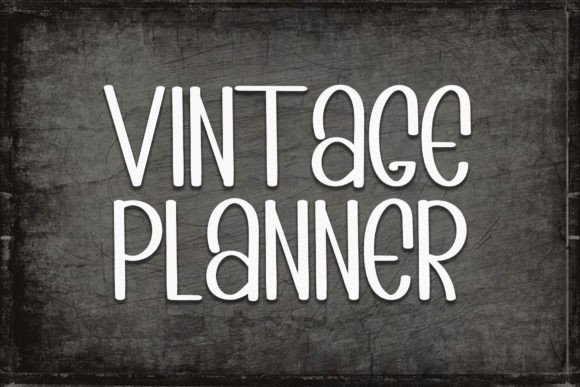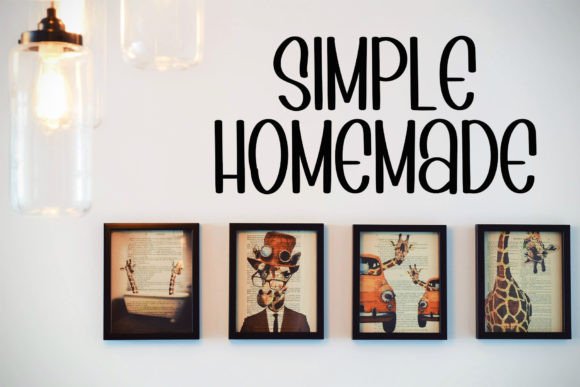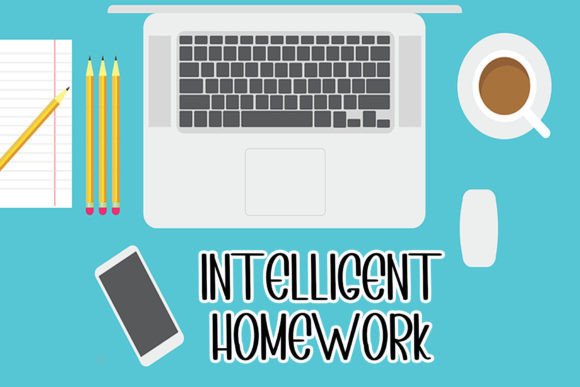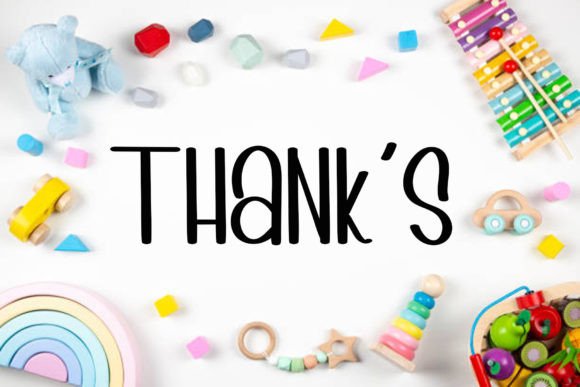
Happiness Birthday Font: Elevate Your Designs with Elegance
Are you searching for a font that adds a touch of sophistication and joy to your projects? Look no further than the Happiness Birthday Font. This beautiful font is designed to bring a sense of elegance and timelessness to your designs, making it perfect for a wide range of creative endeavors. In this article, we’ll explore the features and benefits of the Happiness Birthday Font, and show you how to make the most of this versatile and stunning typeface.
A Font that Exudes Elegance
The Happiness Birthday Font is a neat and beautiful font that is described by an elegant touch. Its incredibly distinct and timeless style is sure to fall in love with, and it’s perfect for designers and crafters who want to create spectacular designs. Whether you’re working on a birthday card, a party invitation, or a special gift, this font is sure to add a touch of sophistication and whimsy to your project.
Key Features of the Happiness Birthday Font
So, what makes the Happiness Birthday Font so special? Here are just a few of its key features:
- Elegant and Timeless Design: The Happiness Birthday Font has a classic, timeless design that’s perfect for creating designs that will stand the test of time.
- Distinctive Style: This font has an incredibly distinct style that’s sure to set your designs apart from the crowd.
- Versatile: The Happiness Birthday Font is perfect for a wide range of creative projects, from birthday cards and party invitations to gifts and more.
How to Use the Happiness Birthday Font
Using the Happiness Birthday Font is easy. Here are a few tips to get you started:
The Happiness Birthday Font is perfect for designers and crafters who want to create stunning designs that will stand out from the crowd. Here are just a few benefits of using this font:
- Save Time: With the Happiness Birthday Font, you can create beautiful designs in no time.
- Increase Creativity: This font is sure to inspire your creativity and help you come up with new and exciting design ideas.
- Professional Results: The Happiness Birthday Font is perfect for creating professional-looking designs that will impress your clients or friends and family.
In conclusion, the Happiness Birthday Font is a beautiful and elegant font that’s perfect for designers and crafters who want to create stunning designs. With its timeless style, distinctive features, and ease of use, this font is sure to become a favorite in your collection. So why wait? Download the Happiness Birthday Font today and start creating spectacular designs that will bring joy and happiness to those around you.
Whether you’re a seasoned designer or a crafter just starting out, the Happiness Birthday Font is sure to inspire your creativity and help you create designs that will stand the test of time. So go ahead, fall in love with this beautiful font, and use it to create something truly special.